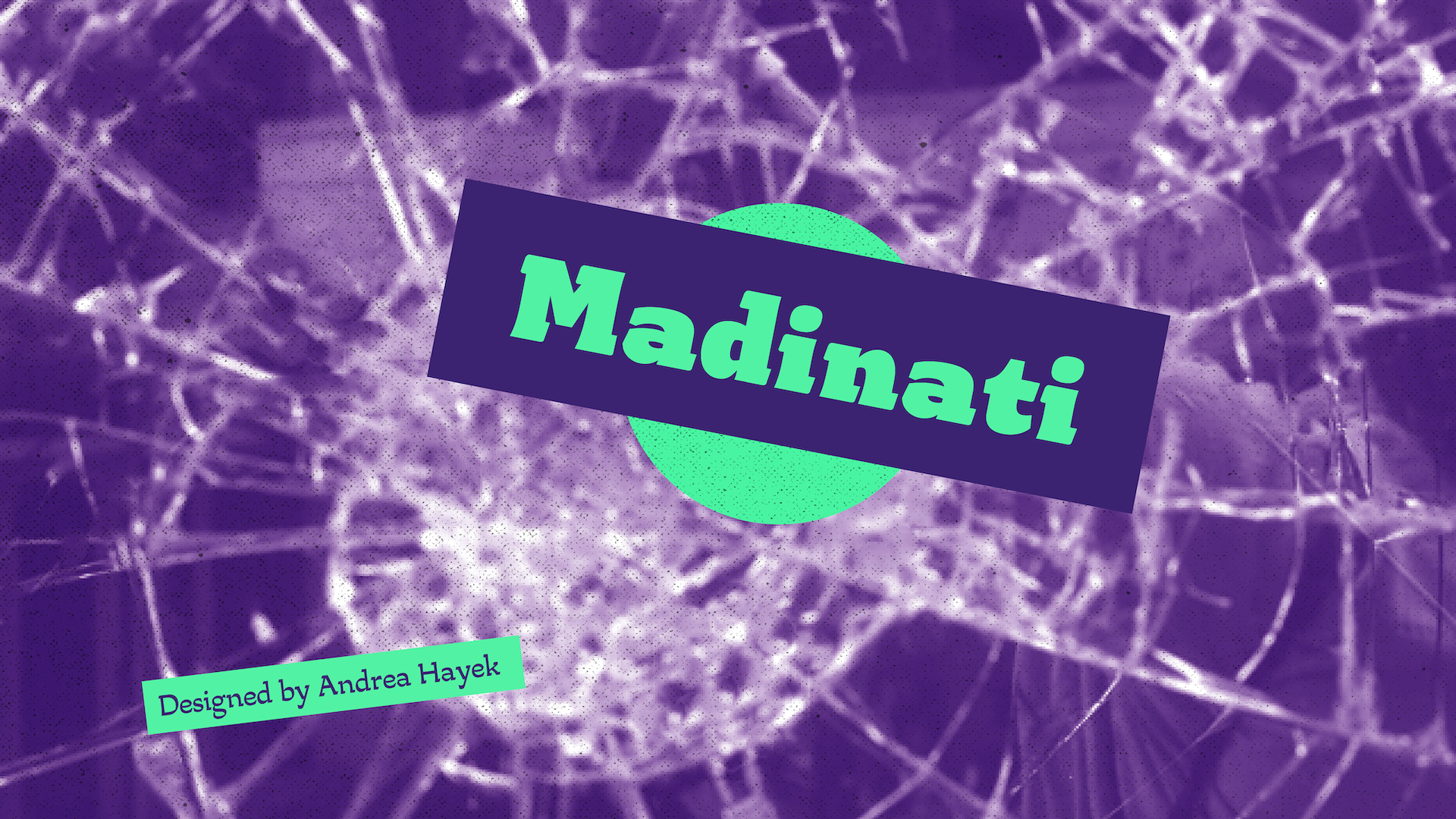
Madinati
Madinati is a text type family of 7 weights, going from Regular to Black and an Italic. It was conceived with Megaphone News in mind; a Lebanese news platform that aims to provide the unfiltered and least biased truth to the people, news that nonetheless stems from anger and a daily struggle. The concept was also heavily inspired by Nadine Chahine’s TPTalk about Design and Politics. The word ‘madinati’ in Arabic translates to ‘my city’. The word was also associated with secular political parties in Lebanon during the parliament elections. It now conveys ideas of change, truth and hope.
My typeface takes inspiration from the calligraphic features of Arabic Naskh and feeds it to the forms of Roman letters. I tried bringing back a fluidity and human aspect that Roman letters now lack, and that Arabic Naskh contains so powerfully. After studying the Naskh script, the angle of the pen, the slant, the way the strokes connect, the angular counter-forms, the pressure and dynamism of the pen; I ventured into calligraphic trials to try and bring these features into my Latin.
Madinati Regular is a horizontal contrast serif typeface with angular connections and asymmetric serifs. With it, I pushed these features to the extreme, which created an unusual text typeface with a lot of character. And in an attempt to tone it back down, and try to bring it closer to a ’news fitted’ typeface, I created a Black version. Madinati Black is a vertical contrast serif typeface that shifts to the other extreme of the design space, allowing for interesting interpolated weights where the horizontal contrast and calligraphic features slowly shift from extreme to extreme.
Madinati Italic is a black-slanted italic, also inspired by the slant of the Arabic Naskh.
Ultimately, the typeface would become a variable font with variable features going from thin to black, and from horizontal to vertical contrast, so that designers can pick the level of loud vs seriousness they aim for.